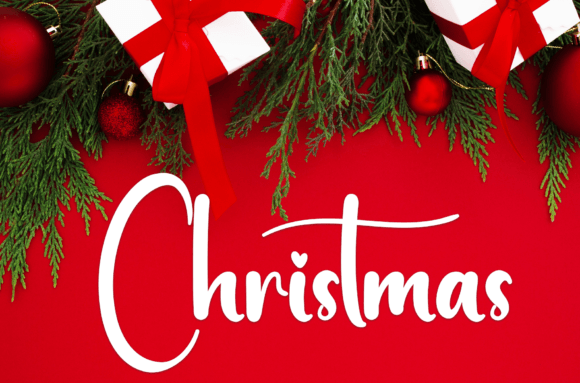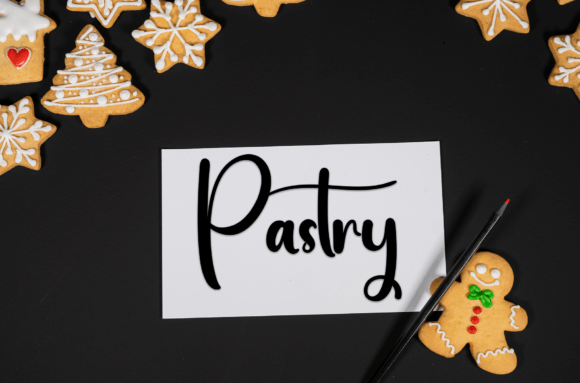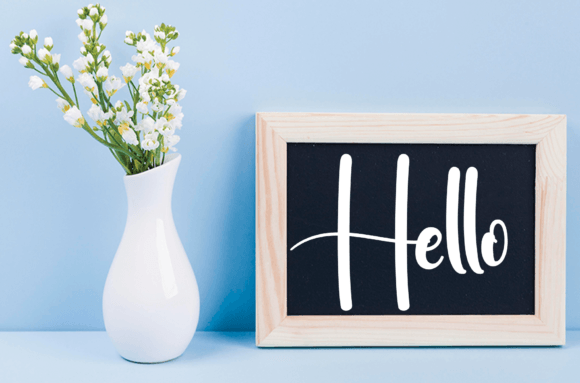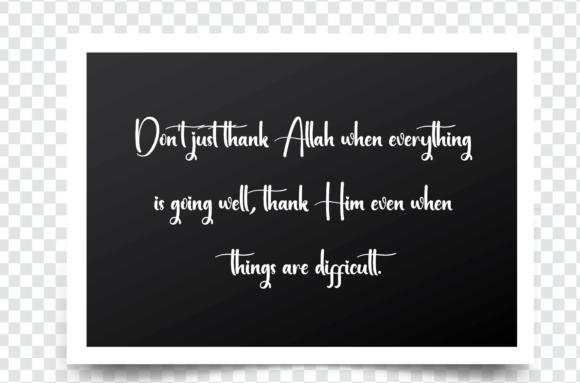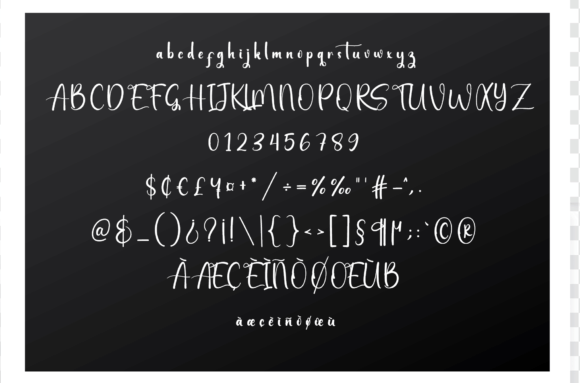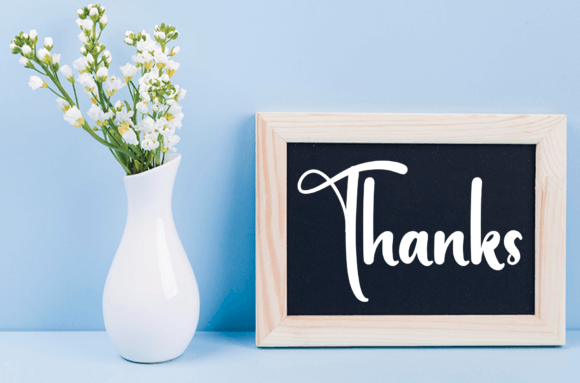
Introducing Butter Signature Font: The Sweet and Friendly Handwritten Font
Are you looking for a font that can add a touch of sweetness and friendliness to your designs? Look no further than Butter Signature Font! This adorable handwritten font is perfect for creating wedding invitations, cards, and other designs that require a fun and playful touch.
What is Butter Signature Font?
Butter Signature Font is a carefully crafted handwritten font that exudes warmth and approachability. Its sweet and friendly demeanor makes it an ideal choice for designers and crafters who want to create designs that are both visually appealing and emotionally resonant.
With its cute and fun aesthetic, Butter Signature Font is sure to capture the hearts of anyone who lays eyes on it. Whether you’re designing a wedding invitation, a greeting card, or a social media graphic, this font is sure to add a touch of whimsy and delight.
Characteristics of Butter Signature Font
So, what makes Butter Signature Font so special? Here are just a few of its key characteristics:
- Handwritten aesthetic: Butter Signature Font has a beautifully handwritten aesthetic that gives it a personal and relatable feel.
- Sweet and friendly: This font is designed to be sweet and friendly, making it perfect for designs that require a touch of warmth and approachability.
- Cute and fun: With its playful and whimsical design, Butter Signature Font is sure to add a touch of fun and excitement to any design.
- Versatile: This font is highly versatile, making it suitable for a wide range of design applications, from wedding invitations to social media graphics.
Use Cases for Butter Signature Font
So, what can you use Butter Signature Font for? The possibilities are endless! Here are just a few ideas to get you started:
- Wedding invitations: Add a touch of sweetness and romance to your wedding invitations with Butter Signature Font.
- Greeting cards: Create fun and playful greeting cards for birthdays, holidays, and other special occasions.
- Social media graphics: Use Butter Signature Font to create eye-catching social media graphics that are sure to grab attention.
- Party decorations: Create custom party decorations, such as banners and signs, with Butter Signature Font.
In conclusion, Butter Signature Font is a sweet and friendly handwritten font that’s perfect for designers and crafters who want to add a touch of whimsy and delight to their designs. With its cute and fun aesthetic, versatile design, and wide range of use cases, this font is sure to become a favorite in your design toolkit.